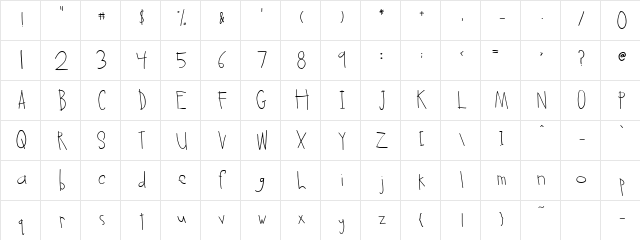
2Peas Snips 'n Snails Regular
Design Context for 2Peas Snips 'n Snails Typeface
2Peas Snips 'n Snails takes a measured approach to typography — its balanced proportions and neutral character make it a reliable workhorse for both digital and print work.